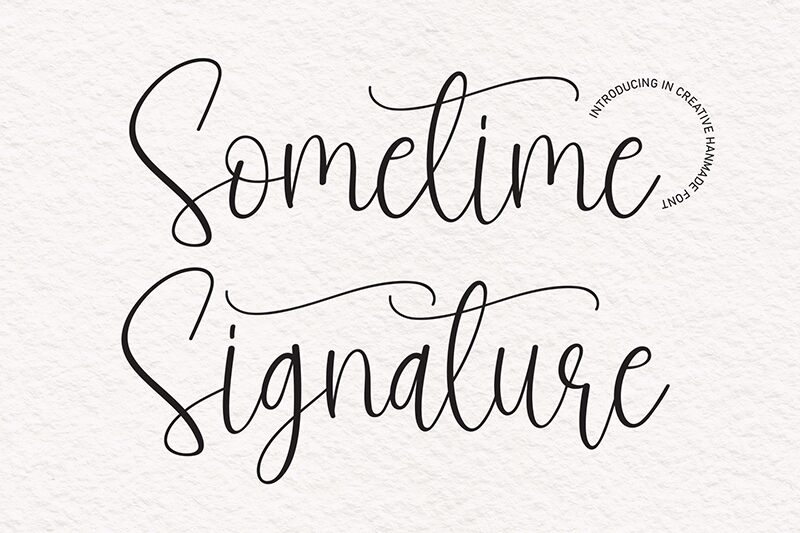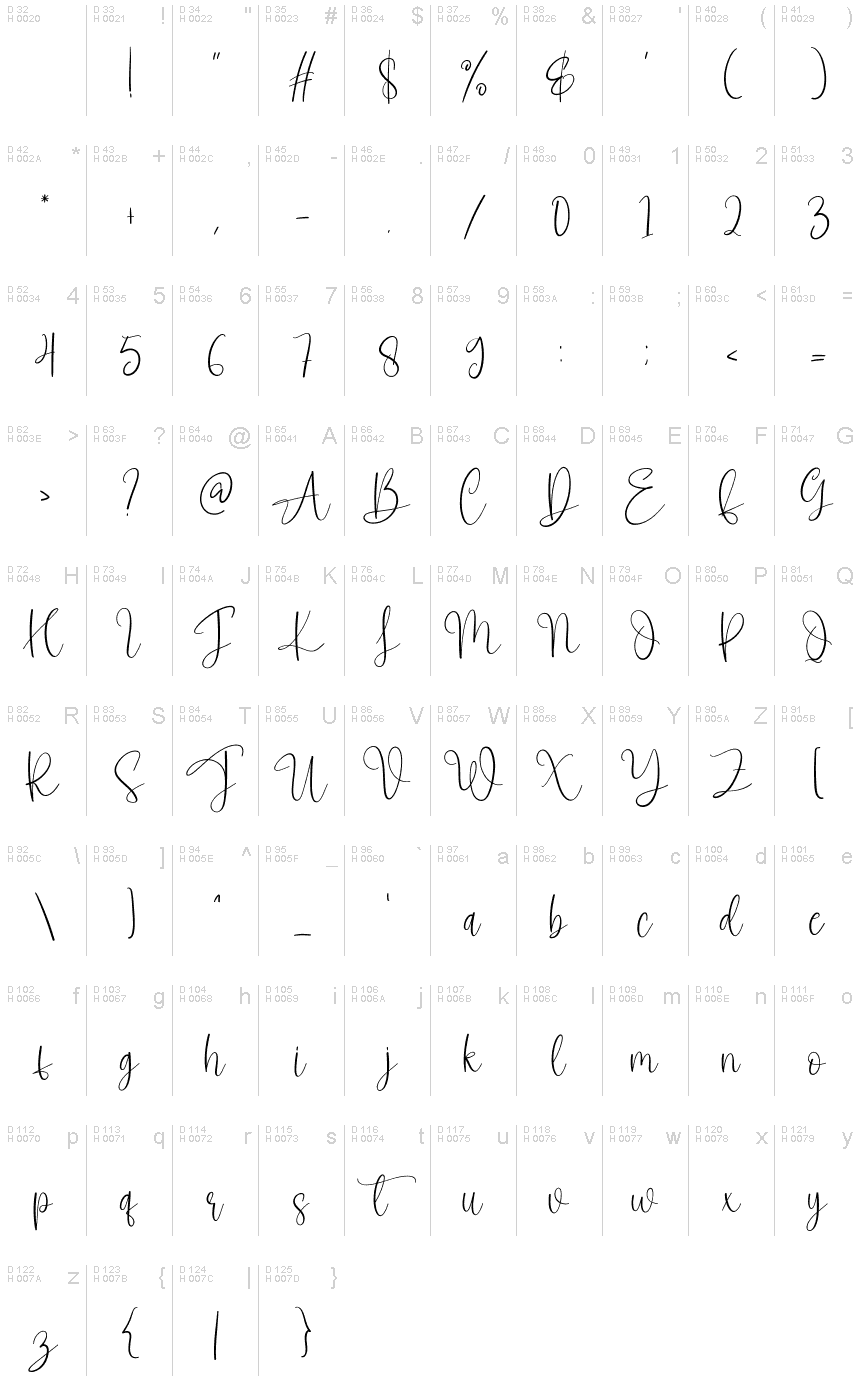
Sometime Signature
Sometime Signature, a light and airy handwritten signature font designed by scratchones, is the perfect way to add a personal touch to your projects. Its elegant style is versatile and suitable for a wide range of creative endeavors, from wedding invitations and business cards to social media graphics and branding materials. The organic flow of the letters creates a sense of movement that draws the eye in and adds an extra layer of sophistication to any design. With Sometime Signature, you can bring your ideas to life with elegance and style.
the latest style letters are perfect for wall displays, wedding invitations, social media post logos, advertisements, product packaging, product designs, labels, photography, watermarks, invitations, stationery, and any project that requires taste handwriting.